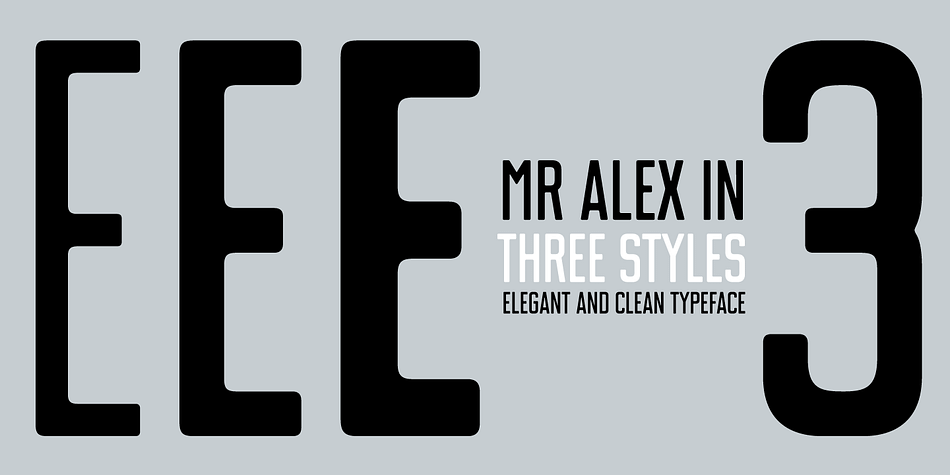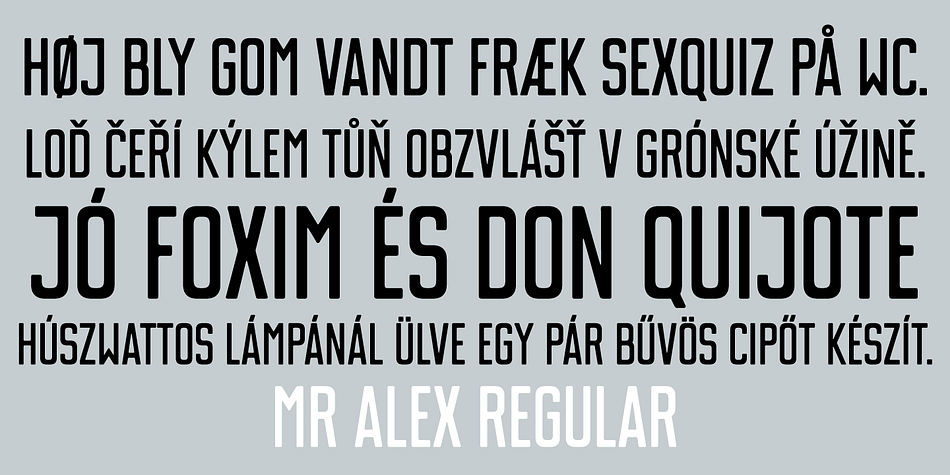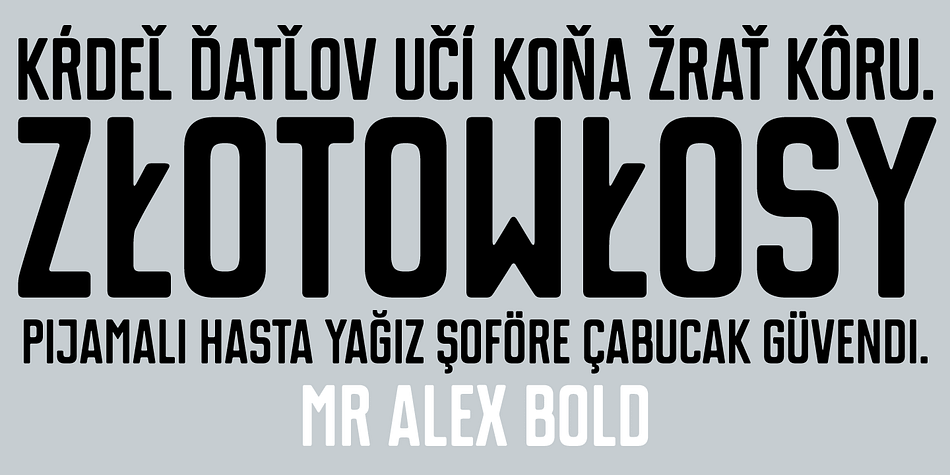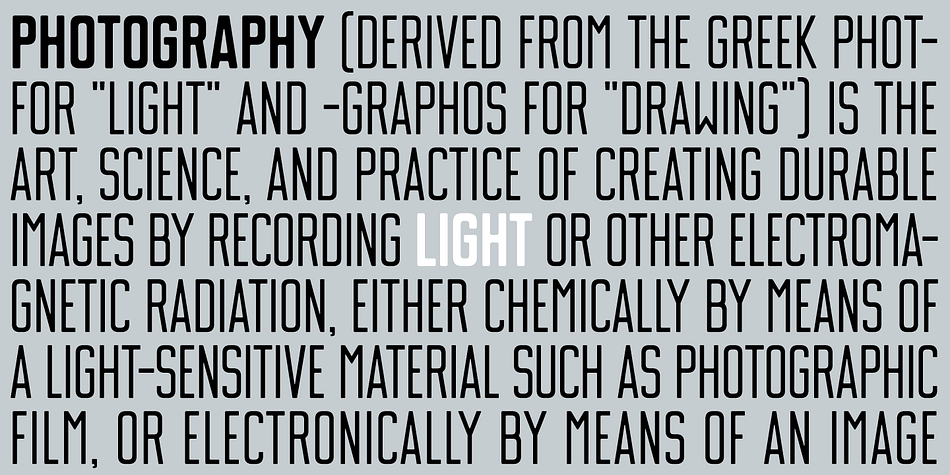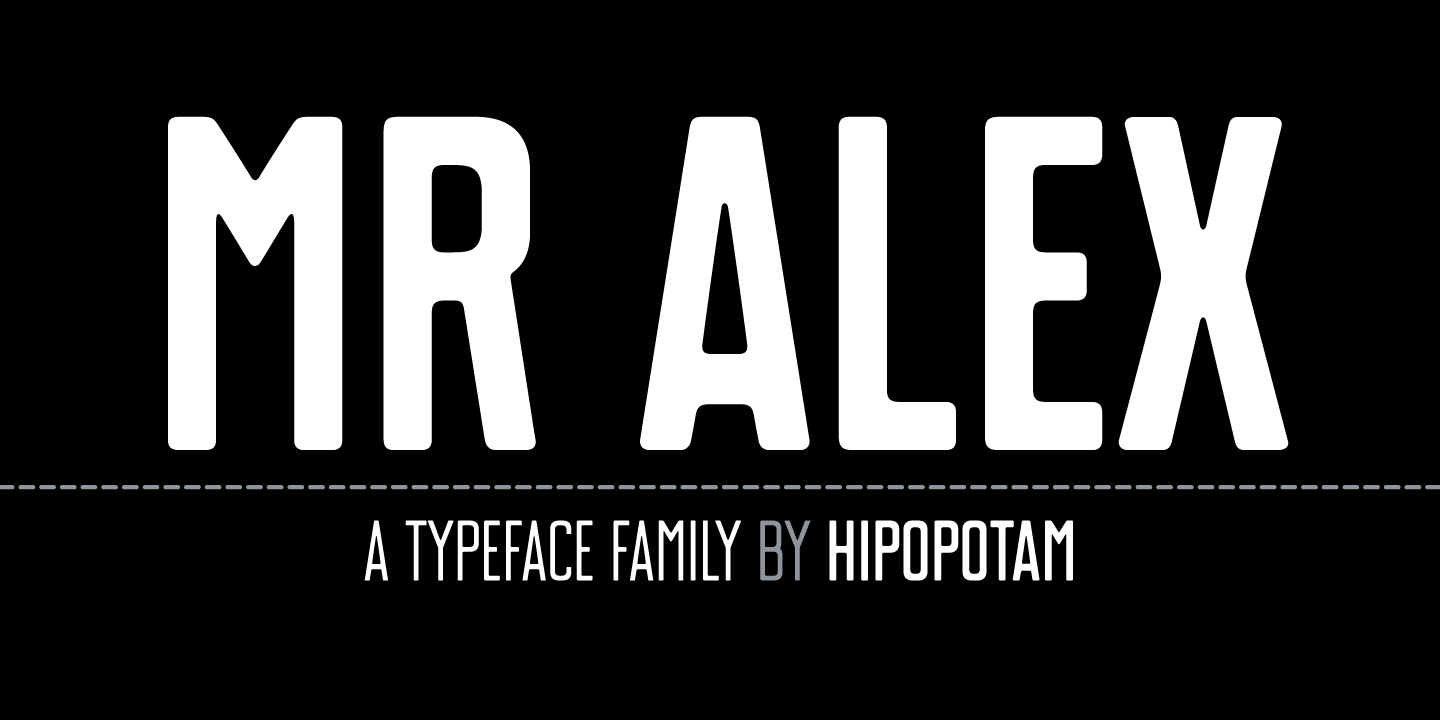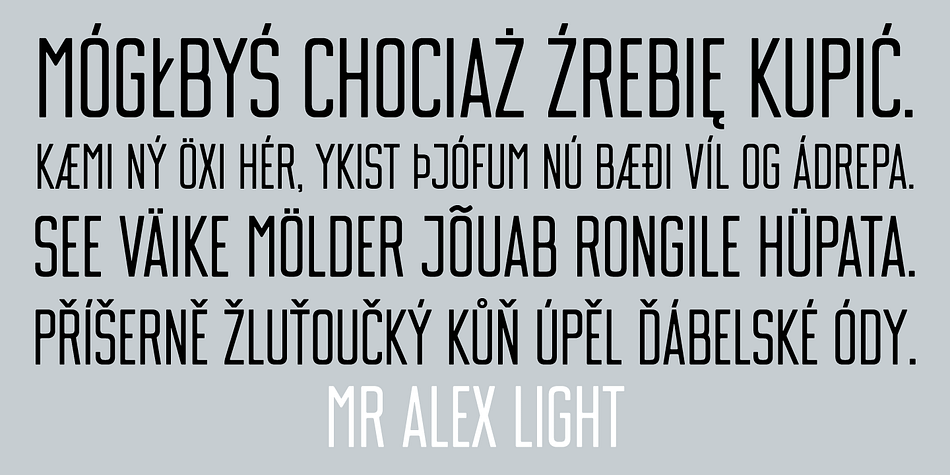
Mr Alex is a display sans font family. This typeface has three styles and was published by Hipopotam Studio.
Clean and elegant display sans-serif uppercase family with three weights and rounded corners. Excellent for headers, posters, t-shirts and websites.